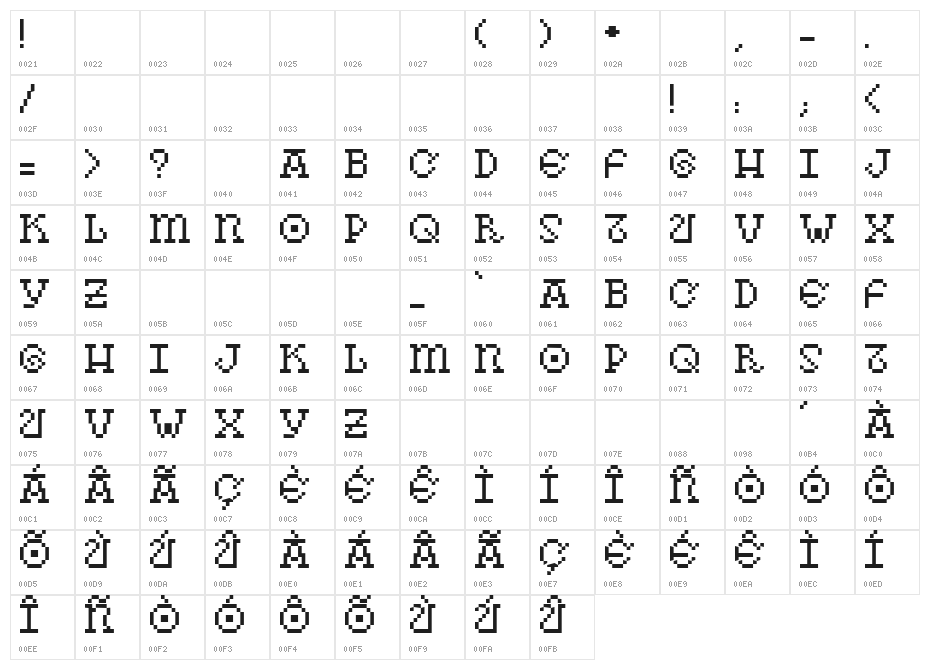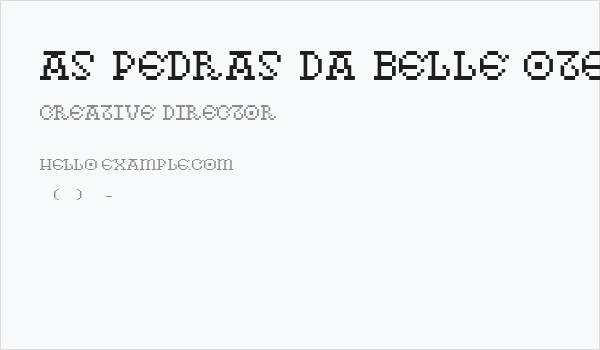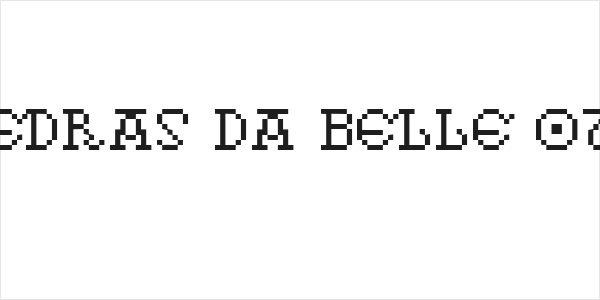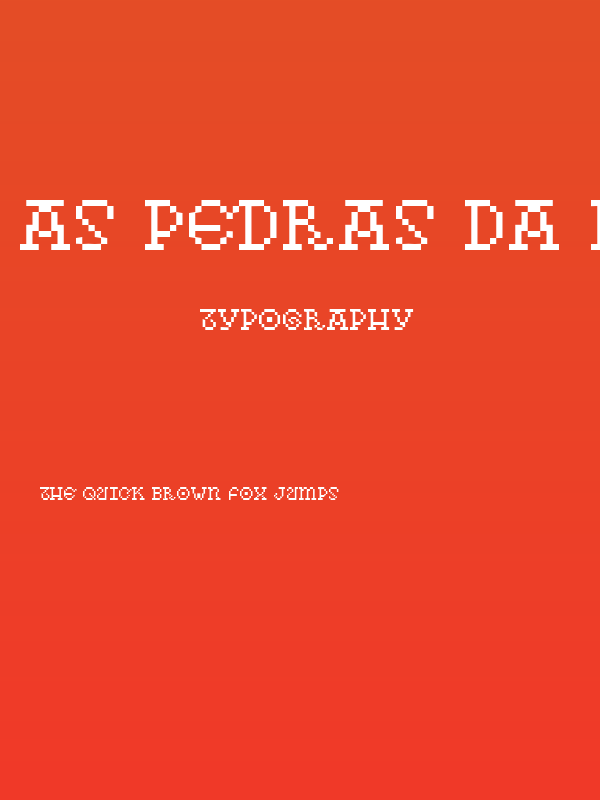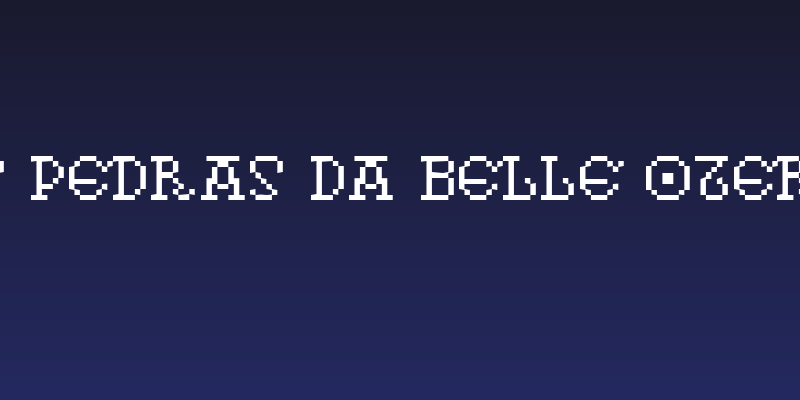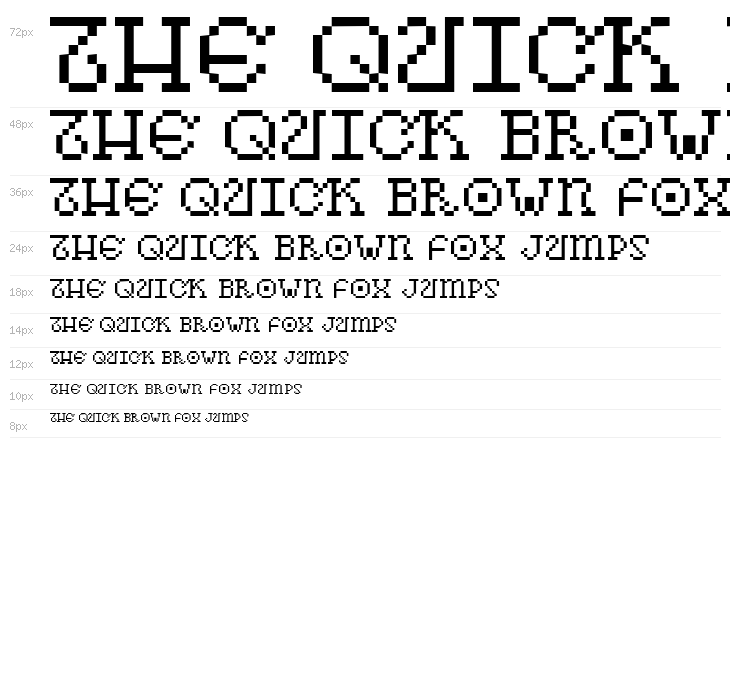
As pedras da Belle Otero Font
As pedras da Belle Otero Description
This font features a pixelated, retro aesthetic reminiscent of early digital displays and video games. Each character is composed of small, square blocks that create a distinct, grid-like appearance. The uppercase letters have a uniform height and width, contributing to a monospaced feel, while the lowercase letters maintain this consistency. The font includes unique design elements, such as a circular pattern within the letter 'O' and a diagonal slash through the letter 'Z'. The special characters, including punctuation marks and symbols, follow the same pixelated style, ensuring a cohesive look across all glyphs. This font's nostalgic charm and clear readability make it suitable for projects that aim to evoke a sense of vintage digital technology.
| Use Case | Logos, Headlines, Digital Art |
| Proposed Projects | Ideal for retro video games, digital art projects, and nostalgic branding. |